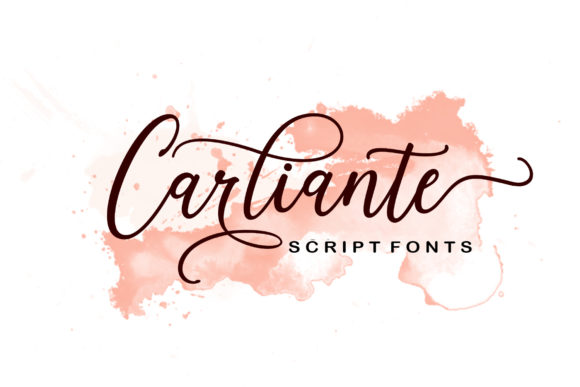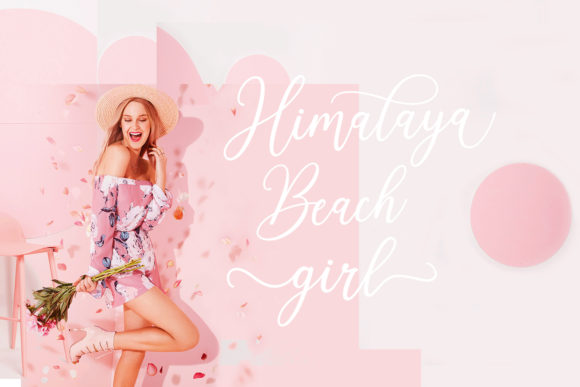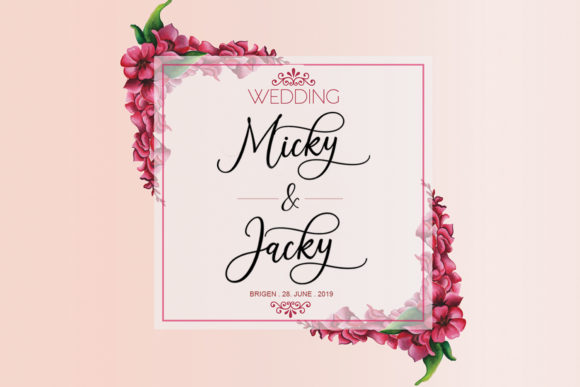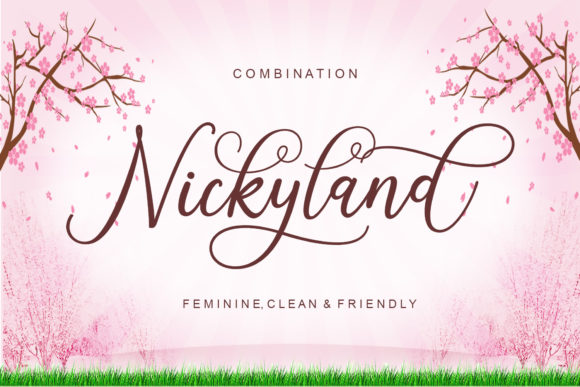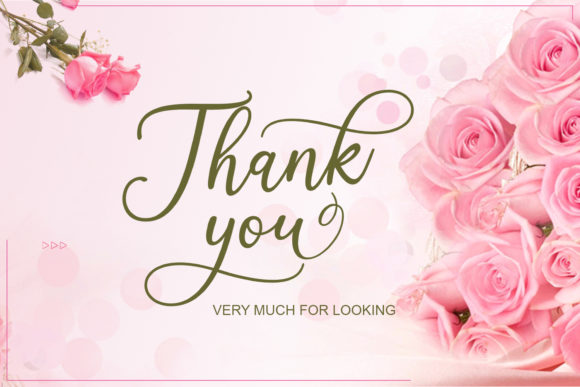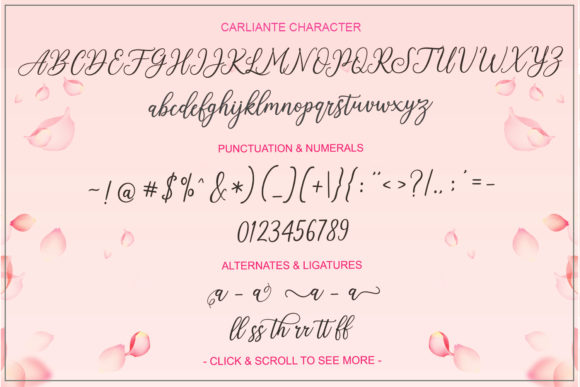
Carliante Font
About Carliante Font
The Carliante is a modern script font. It has a trendy and feminine style and is perfect for logos, t-shirts, product packaging, greeting cards, branding, and much more!